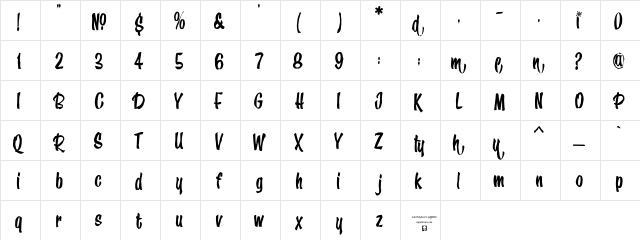
LHF Speedstyle II Extra Bold Regular
| Foundry | Arthur Vanson for Letterhead Fonts |
| Designer | Arthur Vanson |
Design Context for LHF Speedstyle II Extra Bold Typeface
LHF Speedstyle II Extra Bold is a composed and adaptable typeface that performs quietly and consistently across a wide range of design contexts. Its bold stroke weight gives it real presence on the page.